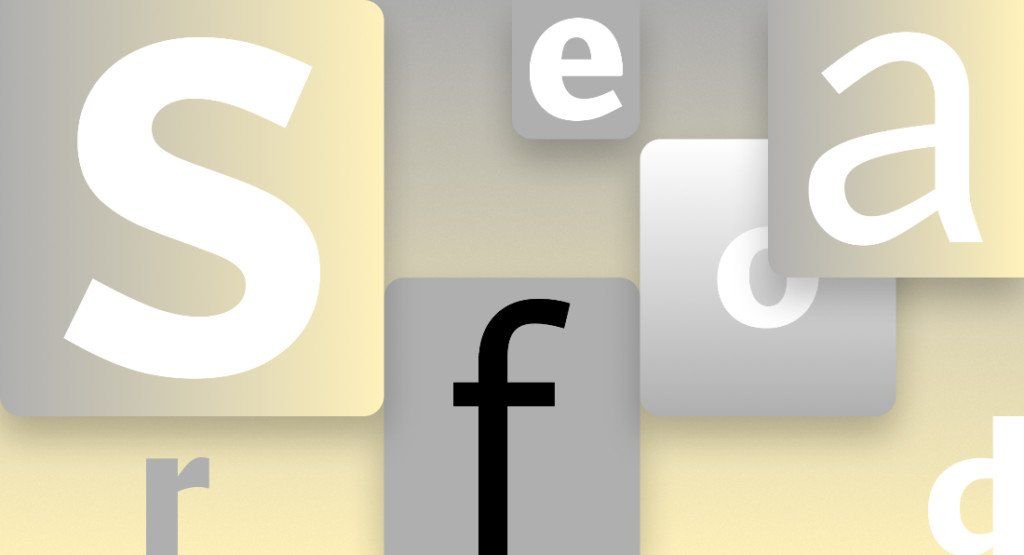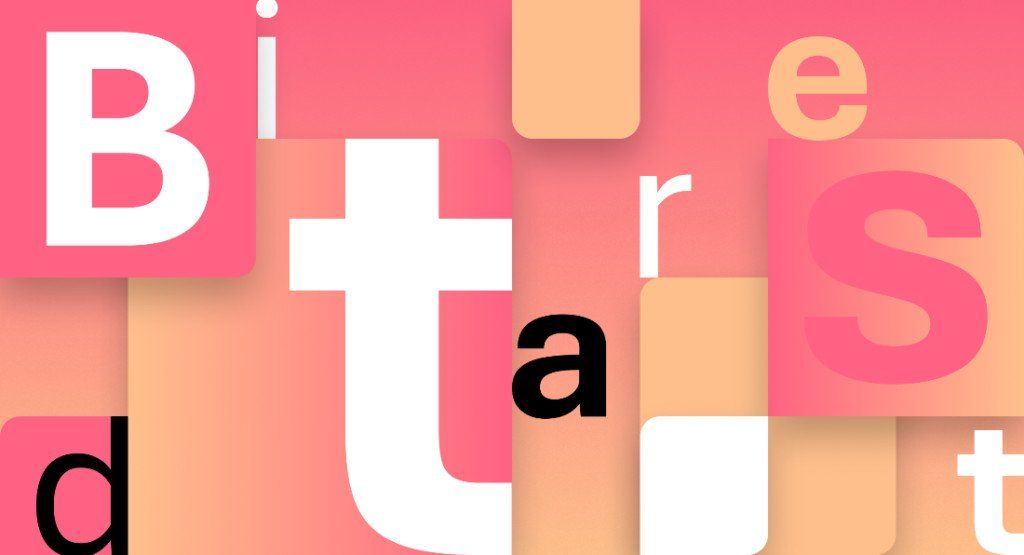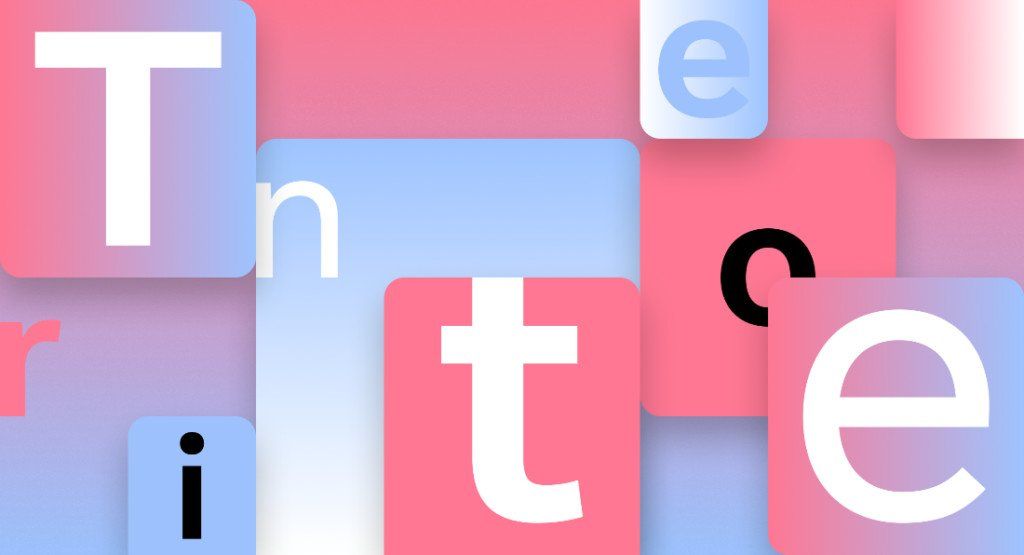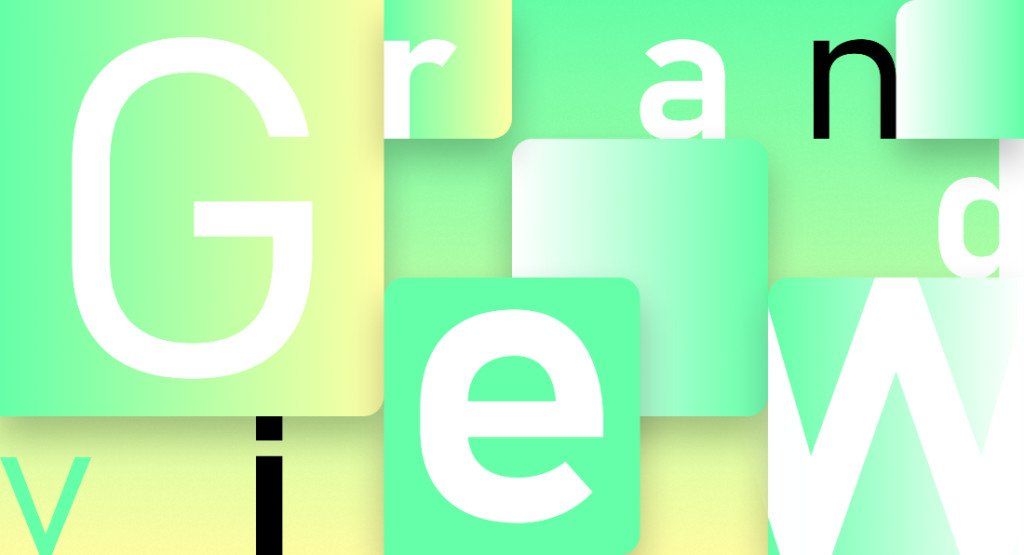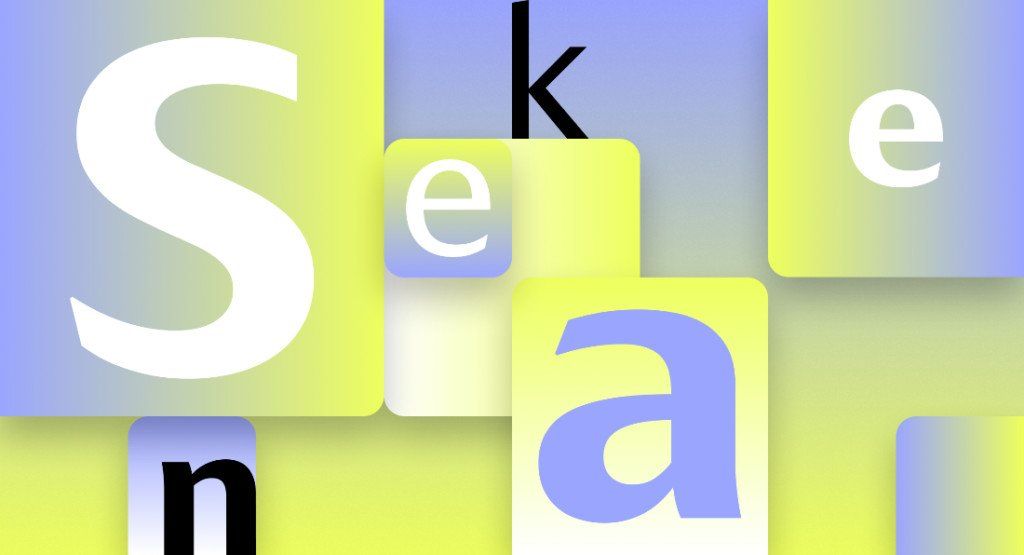
Microsoft moving away from Calibri as default font, and you get to help pick the replacement
Microsoft commissioned five new fonts, and one of them will become the company's default.
- Microsoft is moving away from Calibri as its default font.
- Calibri has been the default font for Microsoft since 2007.
- Microsoft commissioned five new fonts that will potentially be the new default.
Microsoft is moving away from Calibri as its default font. Calibri has been the default font for all things Microsoft since 2007, but Microsoft says its time to go in another direction. Five new fonts were commissioned by Microsoft, and the company is asking for people's thoughts on which one should replace Calibri.
A new post by Microsoft details the new fonts and shares quotes from the makers of each font. The new fonts are Tenorite, Bierstadt, Skeena, Seaford, and Grandview, which you can see below.
Microsoft explains that the "new fonts span the various sans-serif styles—humanist, geometric, swiss-style, and industrial—and we've interviewed the designers of each to help bring their nuances and unique personality to life."
Regardless of which font becomes the default, all of the fonts will be available in the font menu. Calibri will join all of the non-default fonts there as well.
Picking a new default font is a big decision for Microsoft, so it will take some time. The company will evaluate the five font families over the next few months. You can try the fonts out yourself on certain apps.